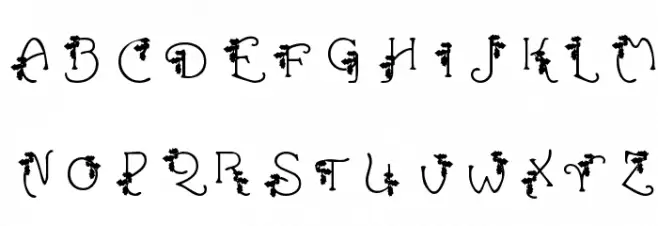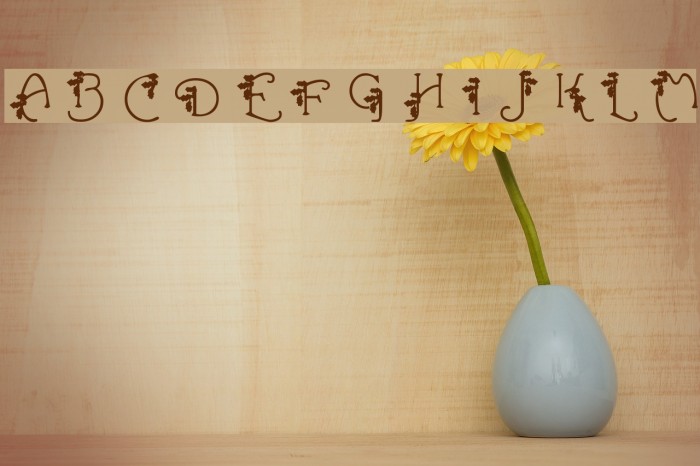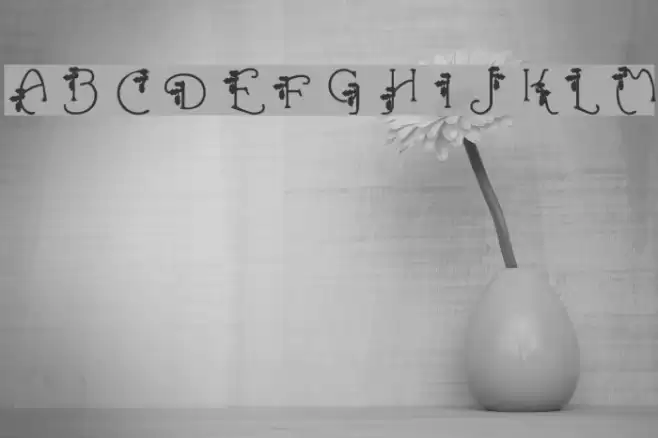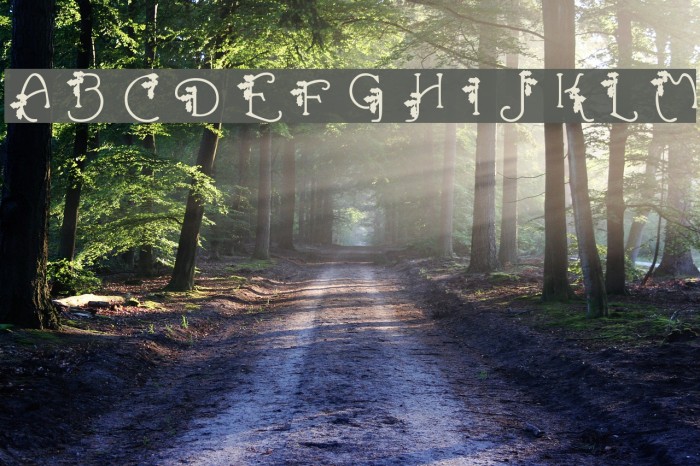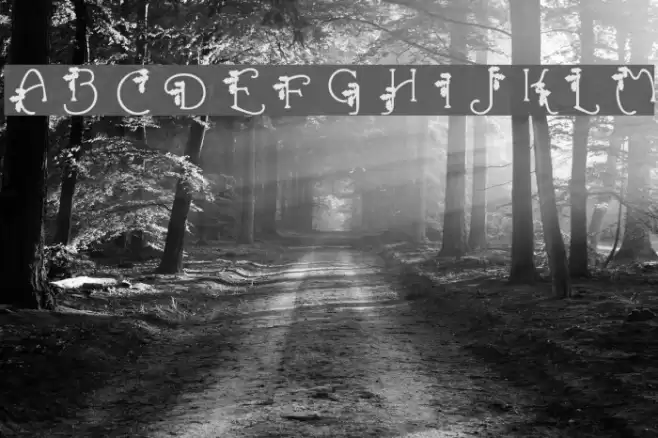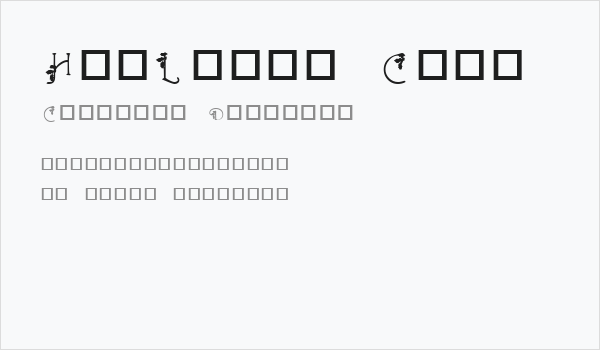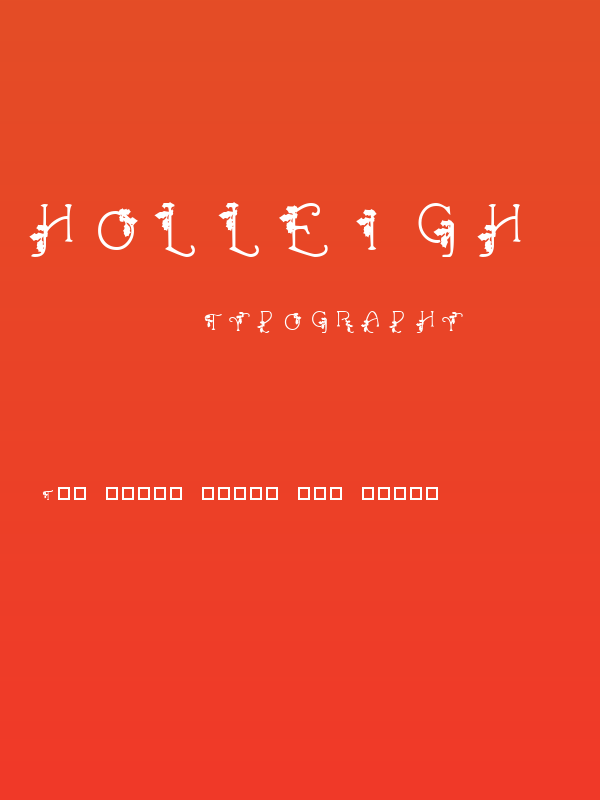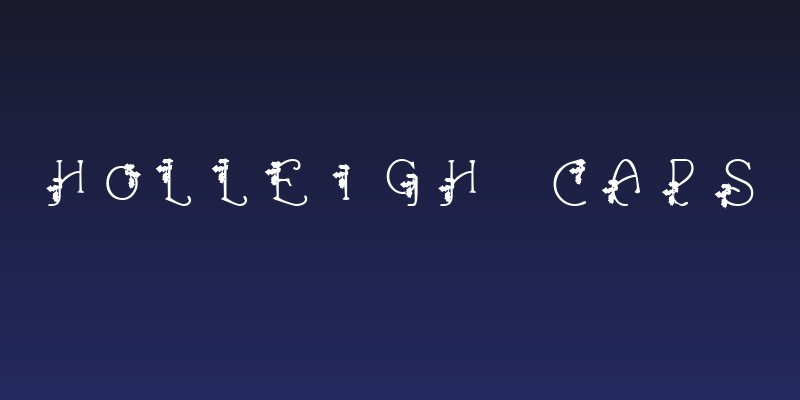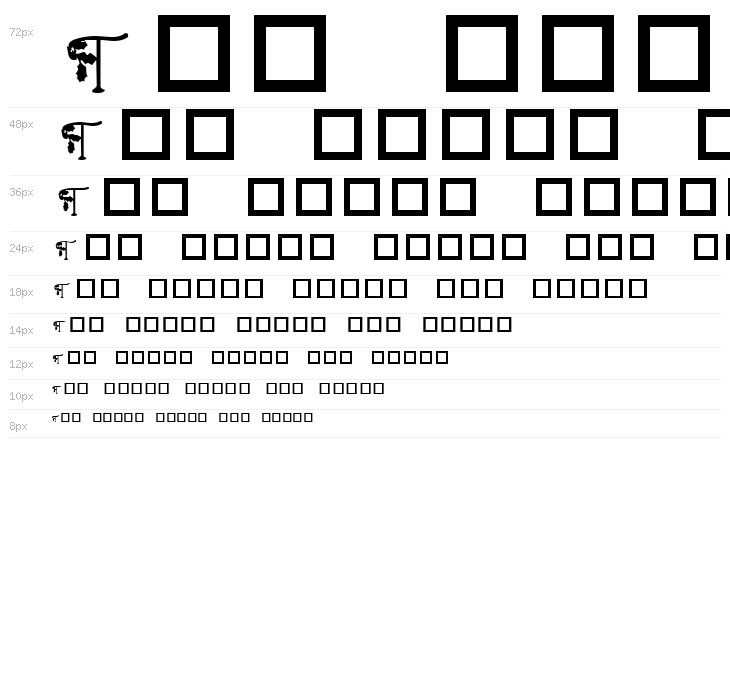
HolLeigh Caps Font
HolLeigh Caps Description
This decorative font features intricate floral embellishments integrated into each character, creating a whimsical and artistic appearance. The uppercase letters are adorned with delicate vines and leaves, giving them a unique and ornate style. The font maintains a consistent balance between the decorative elements and the legibility of the letters. Each character is distinct, with a playful yet elegant flair that stands out. The design is reminiscent of a fairy-tale or fantasy theme, making it suitable for creative and imaginative projects. The overall look is both charming and sophisticated, with a touch of vintage elegance.